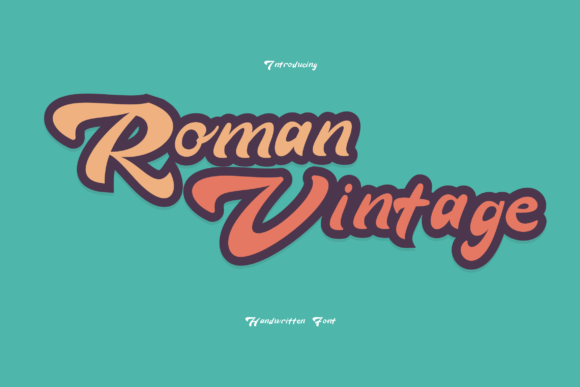
Step into a world of timeless charm and vintage elegance with Roman Vintage Font, a captivating script font family that exudes nostalgia and transports you to an era of classic beauty. This enchanting font, meticulously crafted by kalingga.albert, is your gateway to creating designs that evoke a sense of history and evoke a touch of bygone eras.
Roman Vintage Font possesses an undeniable charm that stems from its playful, nostalgic aura. Its carefully designed characters, reminiscent of vintage typewriters and handwritten letters, infuse any design with a touch of timeless appeal. Whether you're crafting logos, branding materials, or eye-catching social media posts, this font adds an irresistible retro flair that captivates audiences.
With its versatility, Roman Vintage Font transcends the boundaries of traditional script fonts. Its adaptability extends to a wide range of design projects, from elegant wedding invitations and retro-inspired posters to vintage-themed packaging and nostalgic branding. Unleash your creativity and let this font guide you on a journey through the ages, creating designs that resonate with a sense of nostalgia and leave a lasting impression.
Take your designs to a whole new level with Roman Vintage Font. Immerse yourself in the beauty of its intricate details and allow your creativity to flourish. This font is your key to unlocking a world of vintage charm, where every design tells a timeless story. Embrace the power of nostalgia and make a statement with your designs, leaving an indelible mark on the minds of your audience.